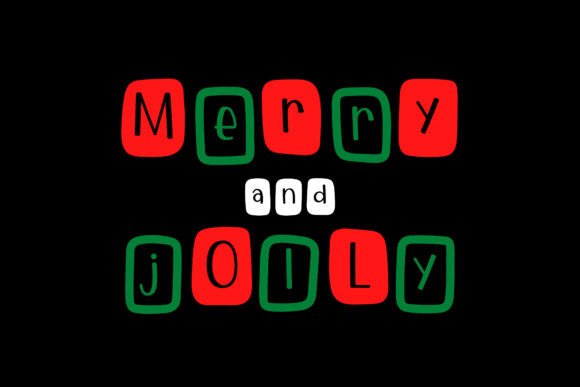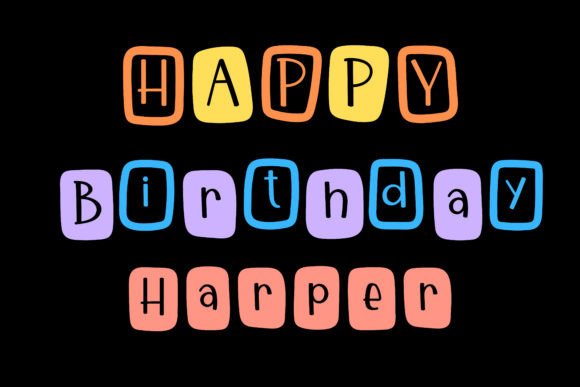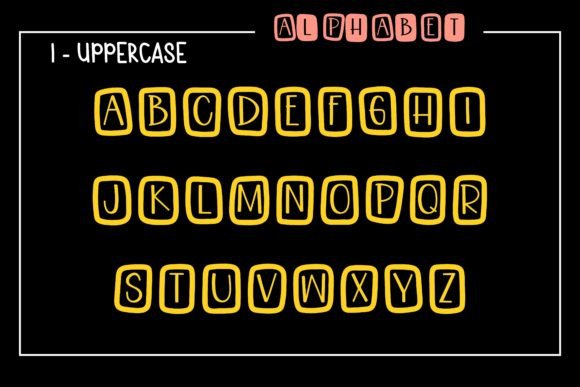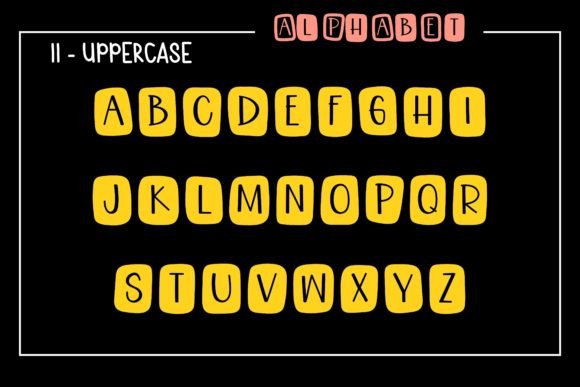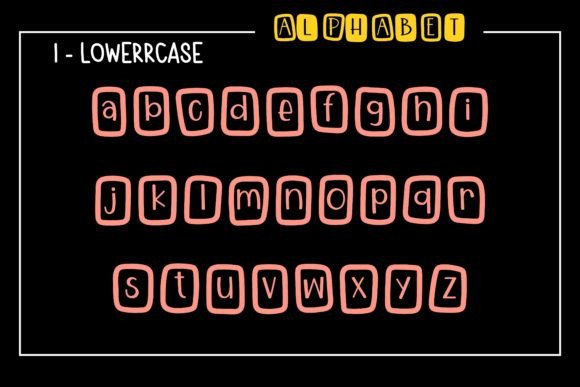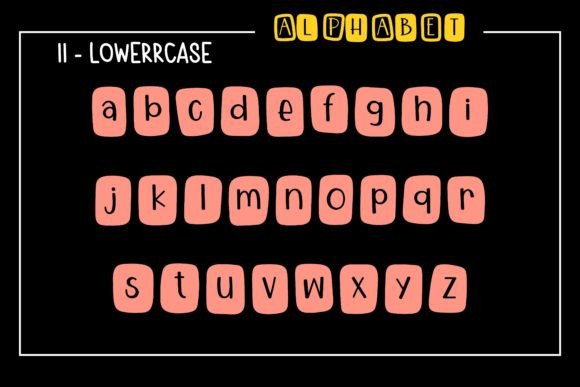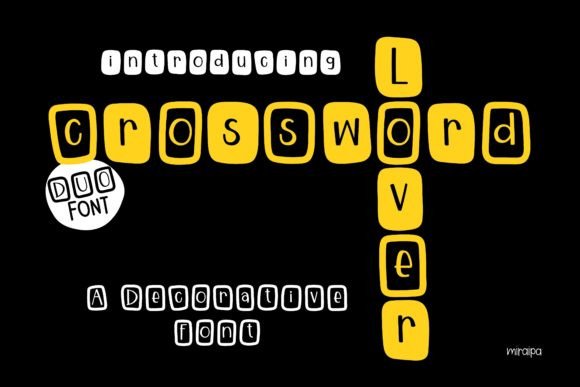
Introducing Crossword Lover Font: The Perfect Addition to Your DIY Projects
Are you a designer, crafter, or DIY enthusiast looking for a font that can add a friendly and playful touch to your projects? Look no further than Crossword Lover Font! This decorative font is designed to bring a sense of fun and excitement to any project, making it perfect for celebrations, kids-related activities, and more.
What is Crossword Lover Font?
Crossword Lover Font is a unique and creative font designed with a friendly and playful style in mind. Its decorative letters and characters are sure to capture the attention of your audience and add a personal touch to your projects. Whether you’re working on party decorations, invitations, posters, blogs, clothing, greeting cards, or social media posts, this font is the perfect choice.
Perfect for Celebrations and Kids-Related Projects
Crossword Lover Font is especially designed for celebrations and kids-related projects. Its playful style makes it an ideal choice for:
- Halloween party decorations and invitations
- Christmas cards and gift tags
- Birthday party invitations and decorations
- Kids’ party themes and activities
- Children’s book illustrations and graphics
As a designer or crafter, you’re always on the lookout for new and exciting ways to bring your projects to life. Crossword Lover Font offers endless possibilities for creative expression. Here are just a few ideas to get you started:
- Party decorations: Use Crossword Lover Font to create custom banners, garlands, and signs for your next party or event.
- Invitations and greeting cards: Add a personal touch to your invitations and greeting cards with this playful font.
- Posters and flyers: Create eye-catching posters and flyers for kids’ events, parties, or activities.
- Blogs and social media: Use Crossword Lover Font to add a friendly and playful touch to your blog or social media posts.
- Clothing and accessories: Create custom t-shirts, hats, or bags with this fun and playful font.
Why Choose Crossword Lover Font?
So why choose Crossword Lover Font for your next project? Here are just a few reasons:
- Unique and creative design: This font is unlike anything you’ve seen before. Its decorative letters and characters are sure to capture the attention of your audience.
- Playful and friendly style: Crossword Lover Font is designed to bring a sense of fun and excitement to your projects.
- Versatile: Crossword Lover Font can be used for a wide range of projects, from party decorations to social media posts.
Tips and Tricks for Using Crossword Lover Font
Here are a few tips and tricks to help you get the most out of Crossword Lover Font:
- Experiment with different colors and textures to add depth and interest to your projects.
- Use Crossword Lover Font in combination with other fonts to create a unique and eye-catching design.
- Don’t be afraid to get creative and try new things! This font is designed to be fun and playful, so have fun with it.
In conclusion, Crossword Lover Font is a unique and creative font that’s perfect for designers, crafters, and DIY enthusiasts. Its playful and friendly style makes it ideal for celebrations, kids-related projects, and more. With its endless possibilities for use and easy-to-use design, this font is sure to become a favorite in your library. So why wait? Add Crossword Lover Font to your library today and start bringing your DIY projects to life!